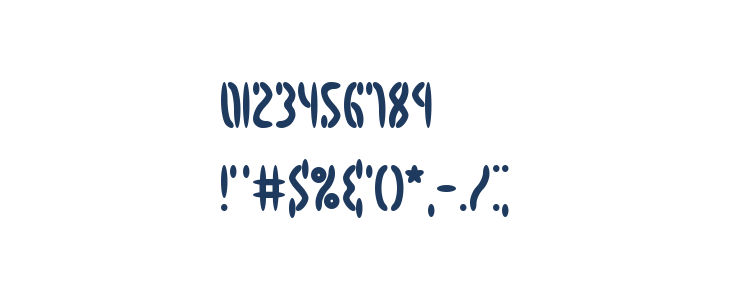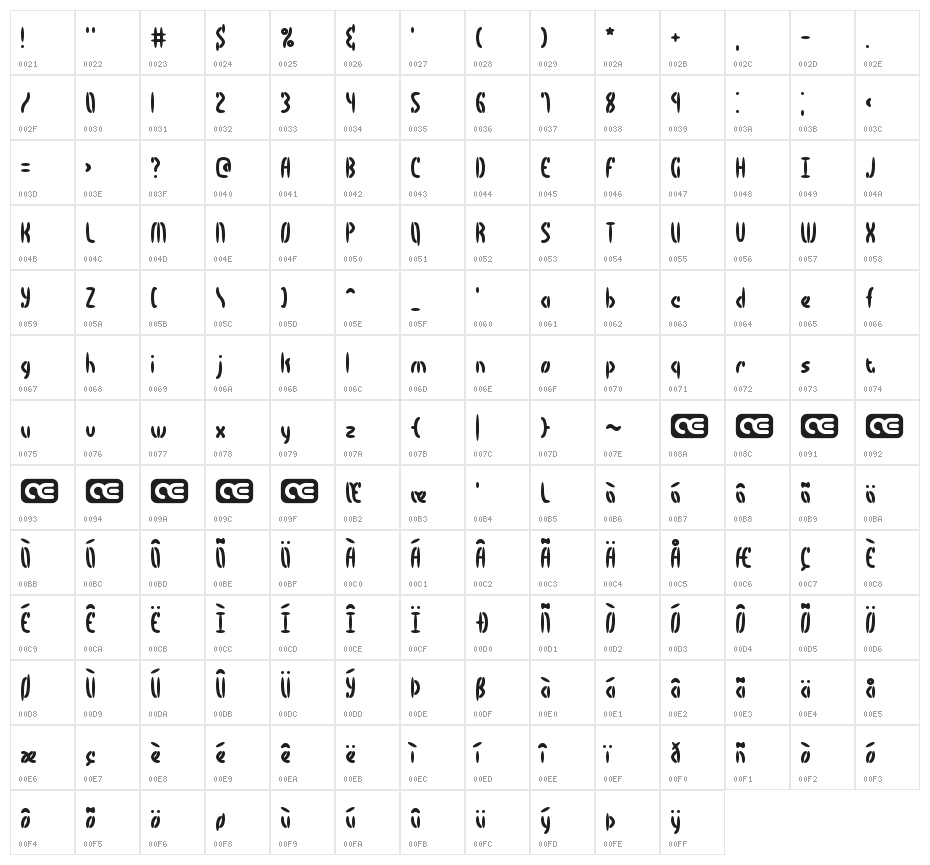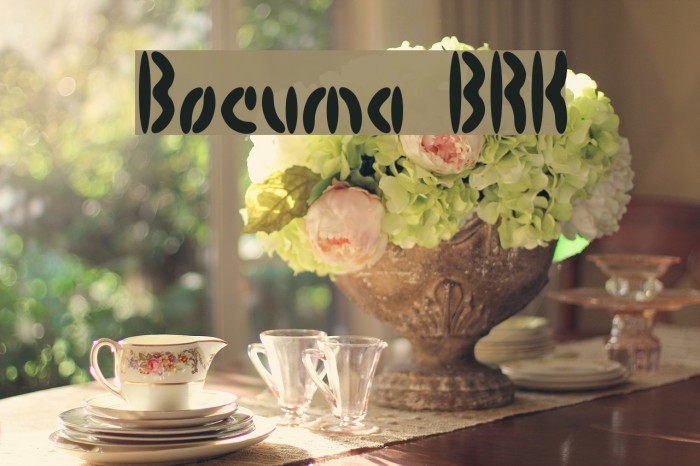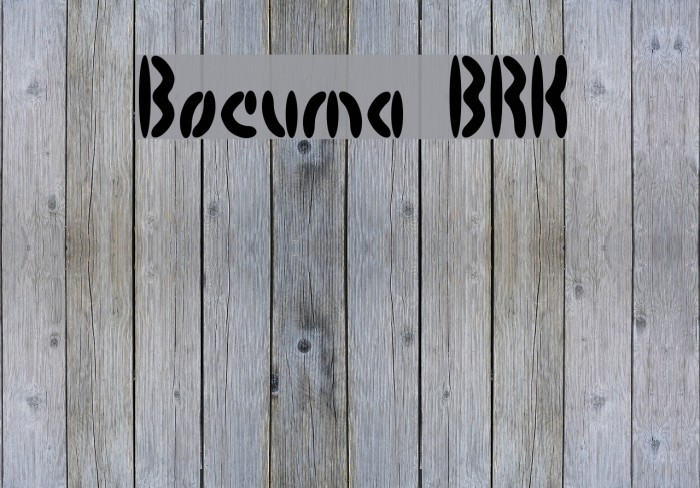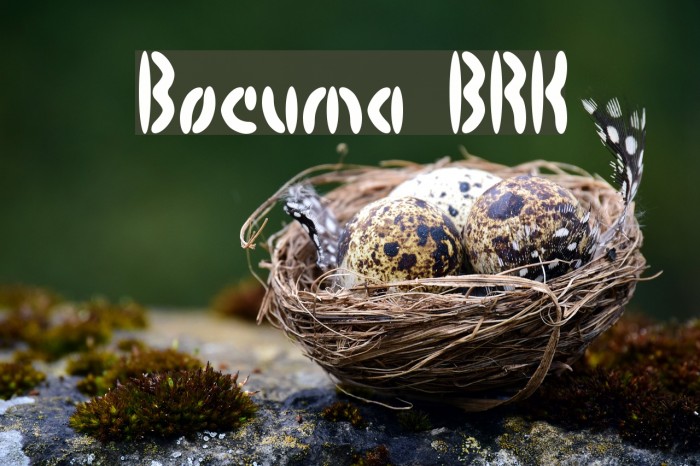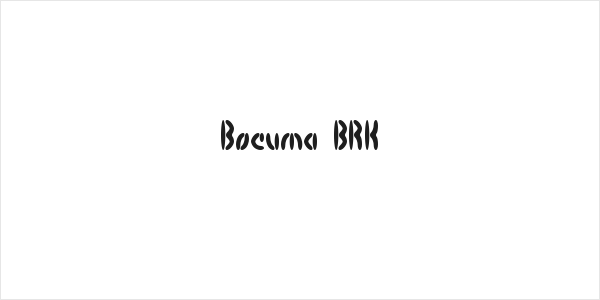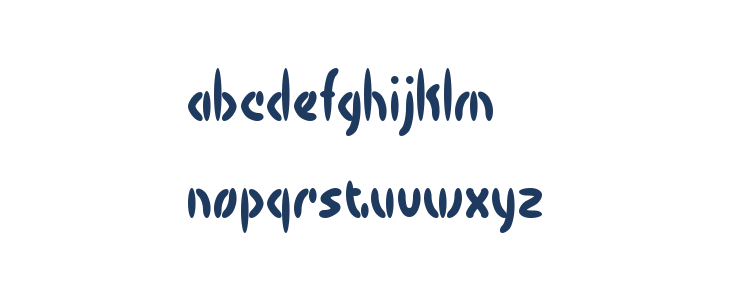
Bocuma BRK Font
Bocuma BRK Description
This font features a bold and playful design with thick, rounded strokes that give it a lively and energetic appearance. The characters are slightly condensed, creating a compact look that maintains readability. The uppercase and lowercase letters share a consistent style, with smooth curves and a uniform thickness throughout. The numbers and special characters are designed to match the overall aesthetic, ensuring a cohesive look across all text elements. This font's unique style makes it stand out, offering a modern twist on traditional typefaces.